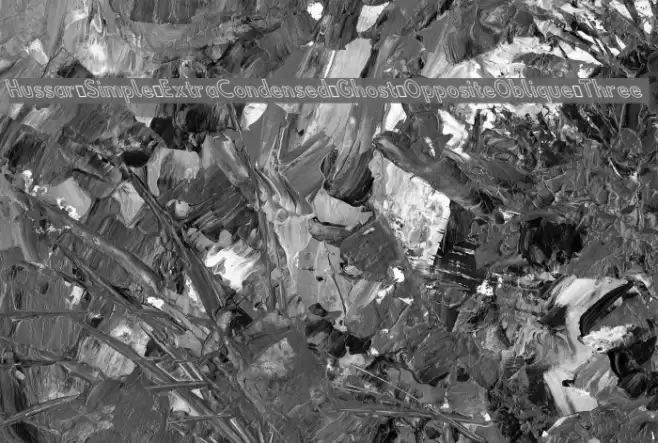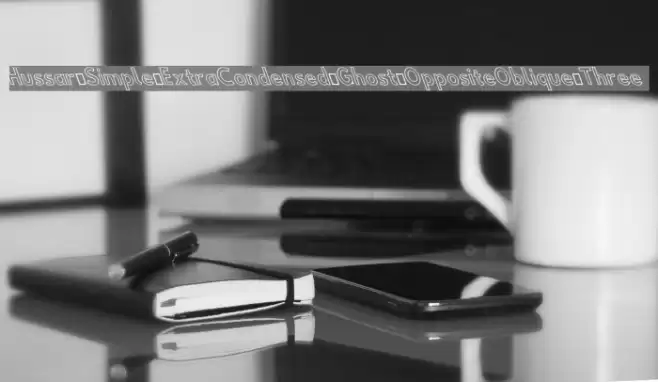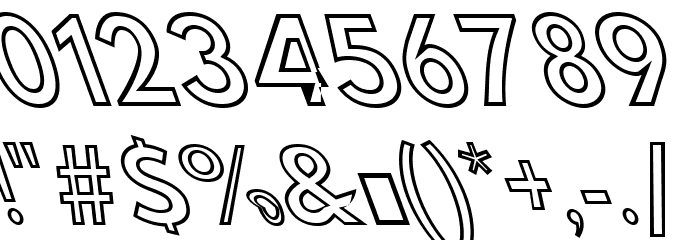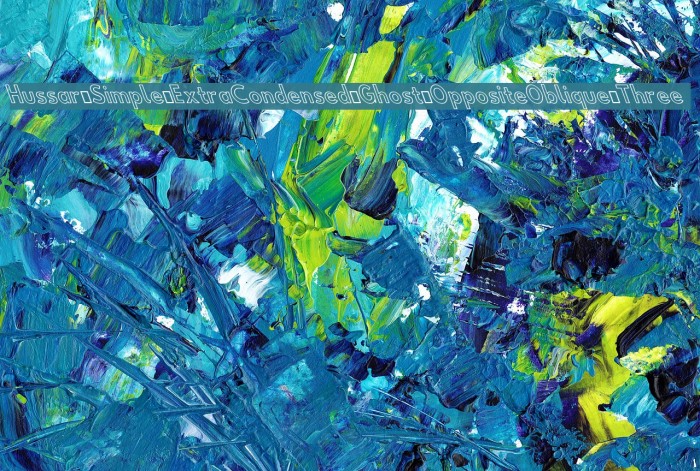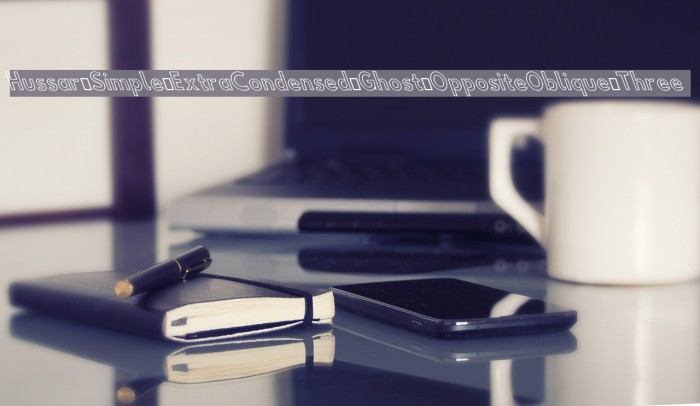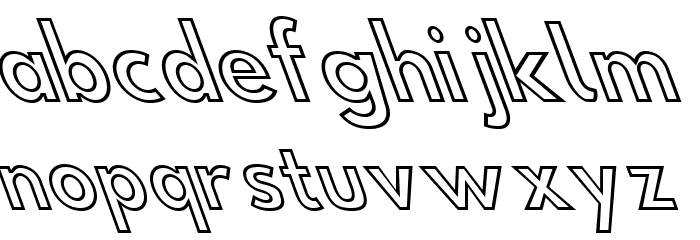
Hussar Simple ExtraCondensed Ghost OppositeOblique Three
This font features a unique outline style with a modern and playful appearance. The characters are extra condensed, giving them a tall and narrow look, which is further enhanced by the opposite oblique slant. The strokes are consistent in width, providing a uniform and clean aesthetic. The uppercase and lowercase letters maintain a cohesive design, while the numerals and special characters complement the overall style. This font's distinct outline effect makes it stand out, offering a contemporary twist on traditional typography.
A modern, extra condensed outline font with an opposite oblique slant.
- Proposed Projects: Ideal for creative projects such as posters, logos, and branding materials where a modern and eye-catching font is desired.
- Width: Condensed